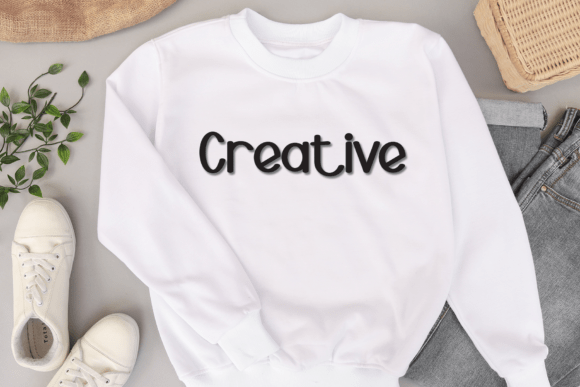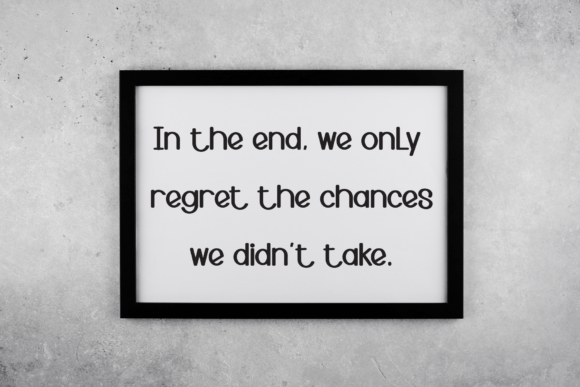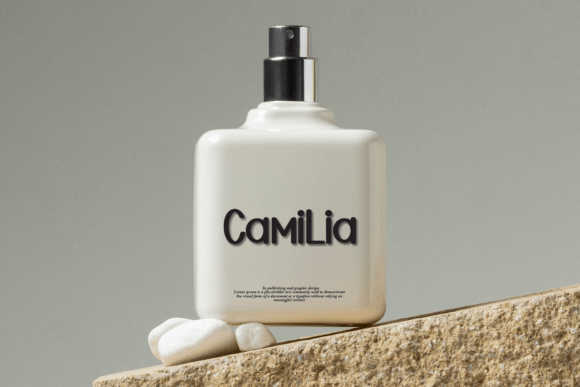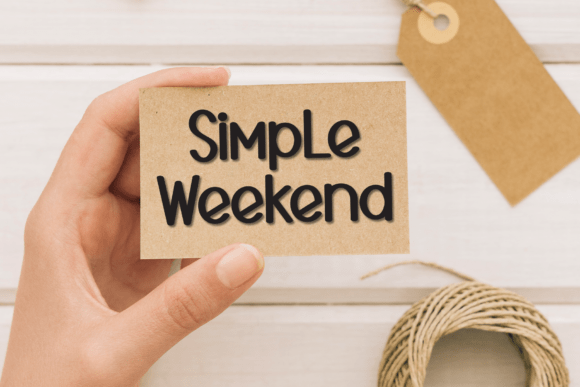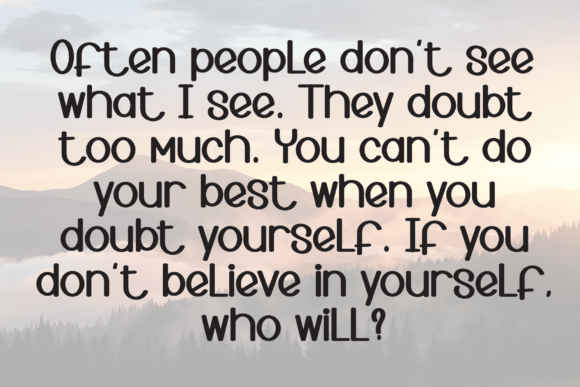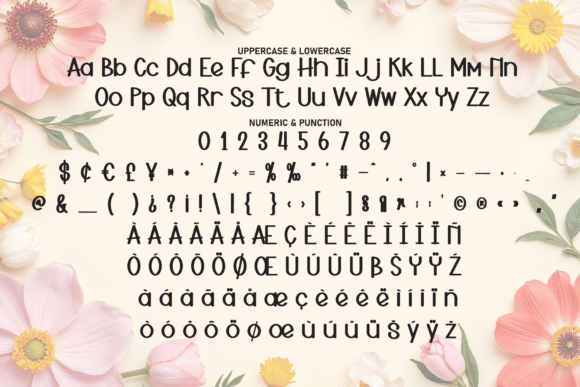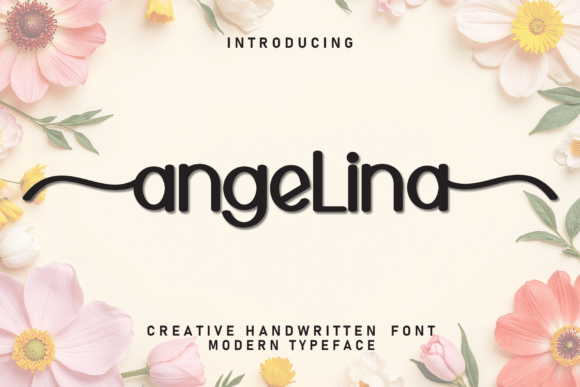
Introducing Angelina Font: The Perfect Blend of Warmth and Clarity
In the world of typography, fonts play a crucial role in conveying messages and setting the tone for a brand or project. With so many options available, it can be overwhelming to choose the right one. However, if you’re looking for a font that exudes warmth, clarity, and approachability, look no further than Angelina Font. Designed to bring a touch of elegance and friendliness to your projects, Angelina Font is a casual and neat display font that’s perfect for designers and crafters alike.
Clean Structure, Approachable Style
Angelina Font boasts a clean structure that provides excellent readability, making it ideal for use in branding, headlines, and everyday designs. Its approachable style ensures that your message feels genuine and inviting, allowing your audience to connect with your content on a deeper level. Whether you’re working on a website, brochure, or social media graphics, Angelina Font is the perfect choice to make your message shine.
Balanced Letterforms for Readability and Charm
One of the standout features of Angelina Font is its balanced letterforms. Each character is carefully crafted to provide a perfect balance of readability and charm, making every message feel authentic and engaging. The font’s neat and organized structure ensures that your text is easy to read, even at smaller sizes, while its unique personality adds a touch of whimsy and flair.
Angelina Font is a versatile font that’s perfect for a wide range of design projects. Whether you’re a professional designer or a crafter looking to add a personal touch to your work, this font is sure to impress. Its clean and elegant design makes it suitable for use in:
• Branding: Create a lasting impression with Angelina Font’s unique and memorable style.
• Headlines: Grab attention with bold and eye-catching headlines that exude warmth and clarity.
• Everyday designs: Add a touch of elegance and sophistication to your everyday designs, from social media graphics to brochures and flyers.
Why Choose Angelina Font?
With so many fonts available, why choose Angelina Font? Here are just a few reasons why designers and crafters love this font:
• Unique personality: Angelina Font has a distinct and charming personality that sets it apart from other fonts.
• Excellent readability: The font’s clean structure and balanced letterforms ensure that your text is easy to read, even at smaller sizes.
• Versatility: Angelina Font is suitable for use in a wide range of design projects, from branding and headlines to everyday designs.
In conclusion, Angelina Font is a casual and neat display font that’s perfect for designers and crafters looking to add warmth and clarity to their projects. Its clean structure, approachable style, and balanced letterforms make it an excellent choice for branding, headlines, and everyday designs. With its unique personality and versatility, Angelina Font is sure to become a staple in your design toolkit. So why wait? Give Angelina Font a try today and see the difference it can make in your designs!
Whether you’re looking to create a lasting impression with your branding, grab attention with bold headlines, or add a touch of elegance to your everyday designs, Angelina Font is the perfect choice. Its charm, readability, and versatility make it an excellent addition to any design project. So go ahead, explore the possibilities with Angelina Font, and discover a world of creative possibilities!